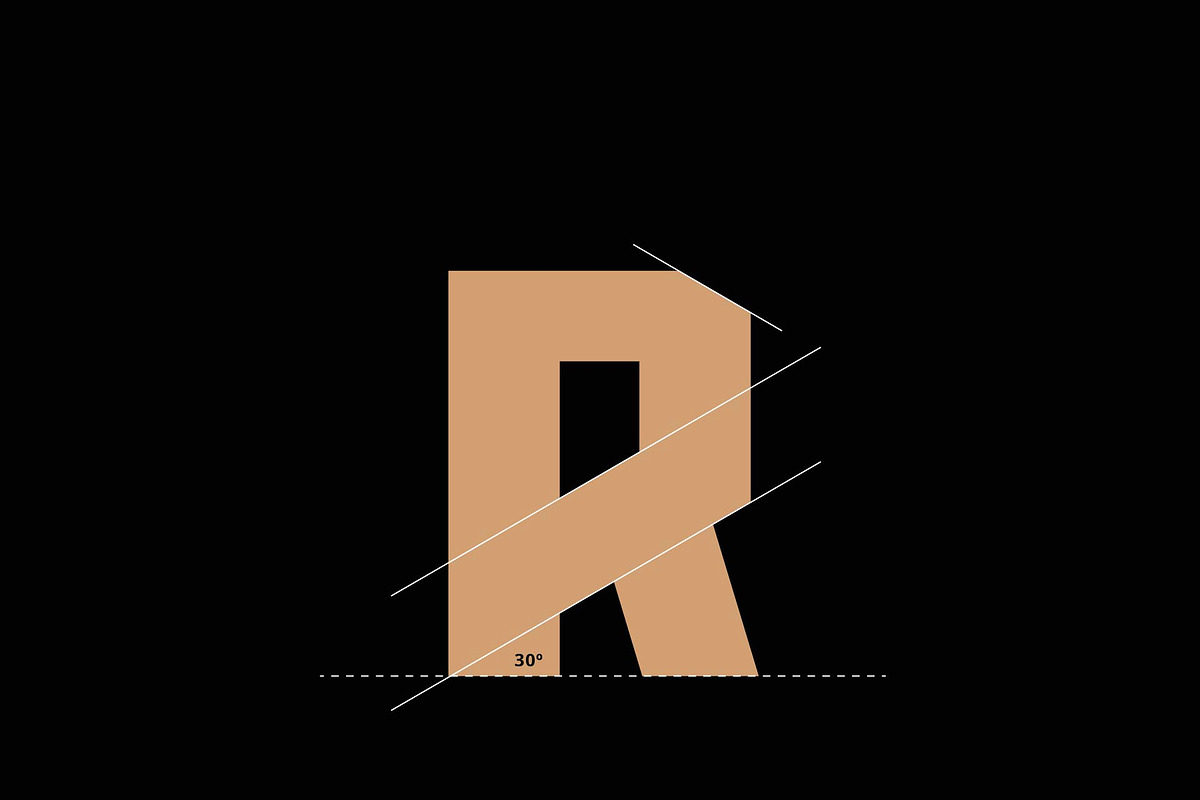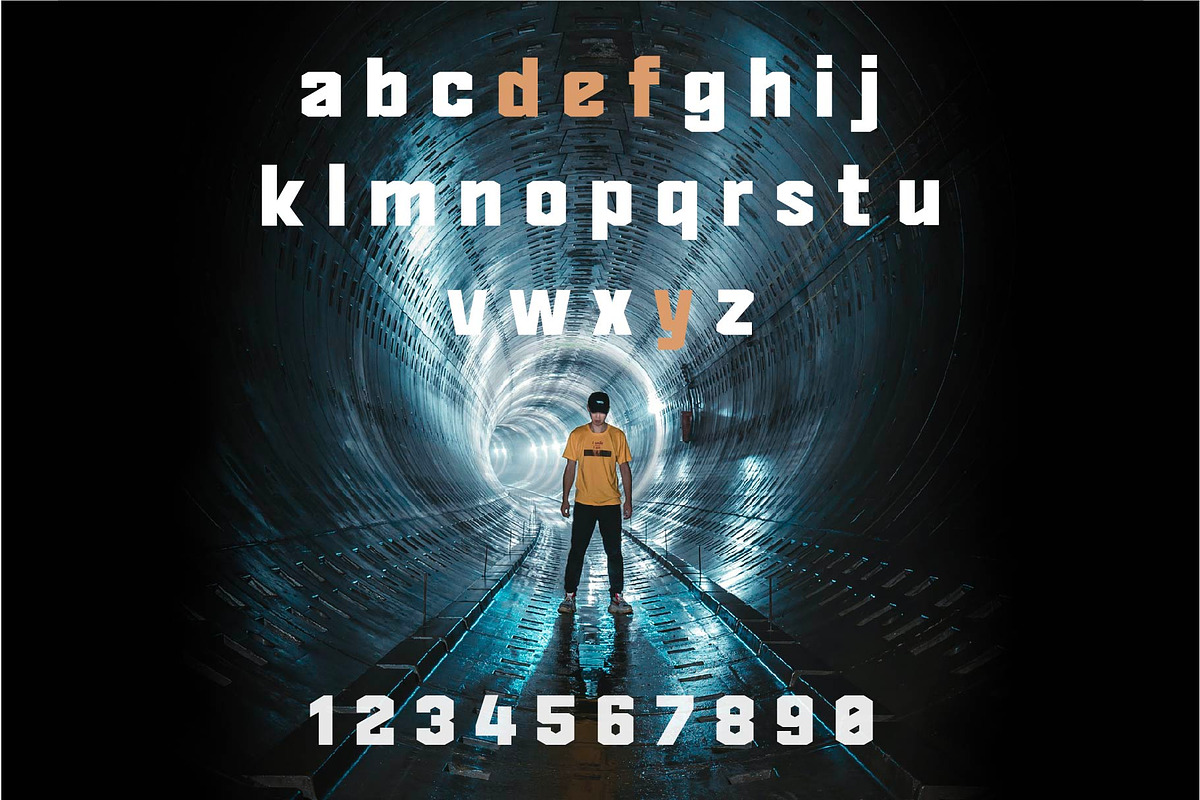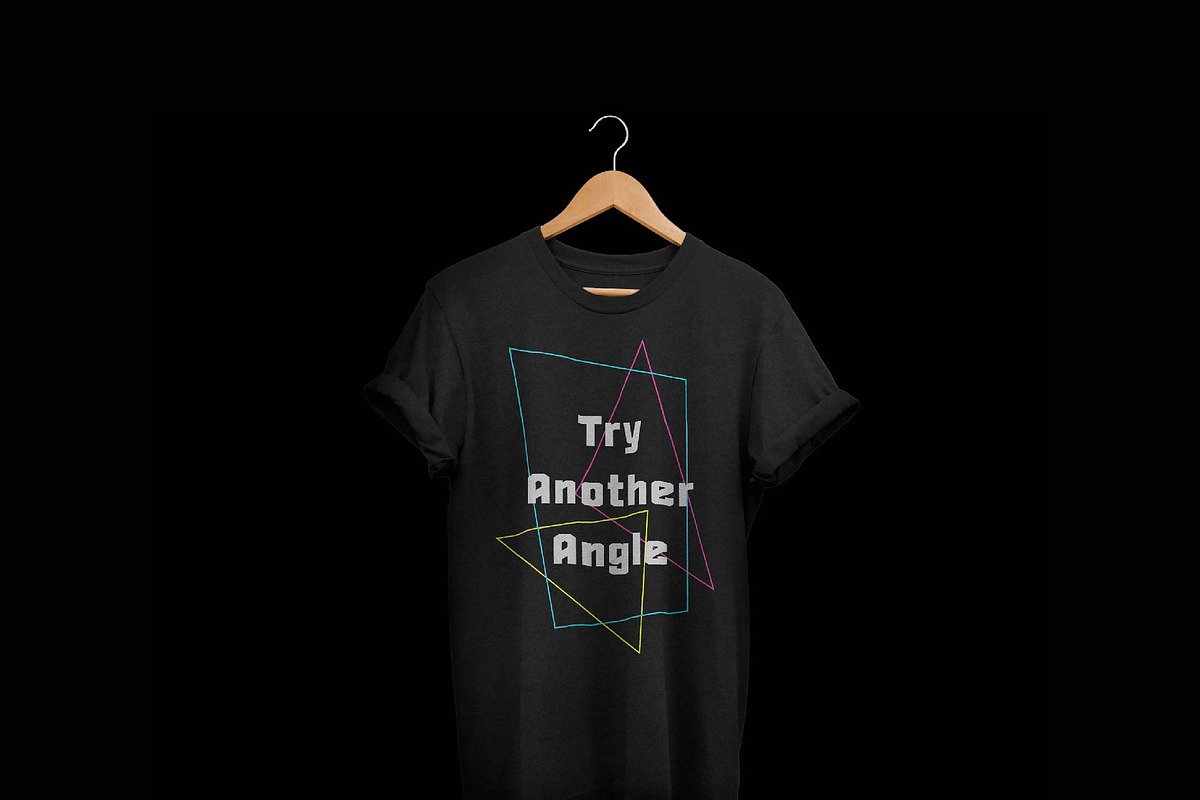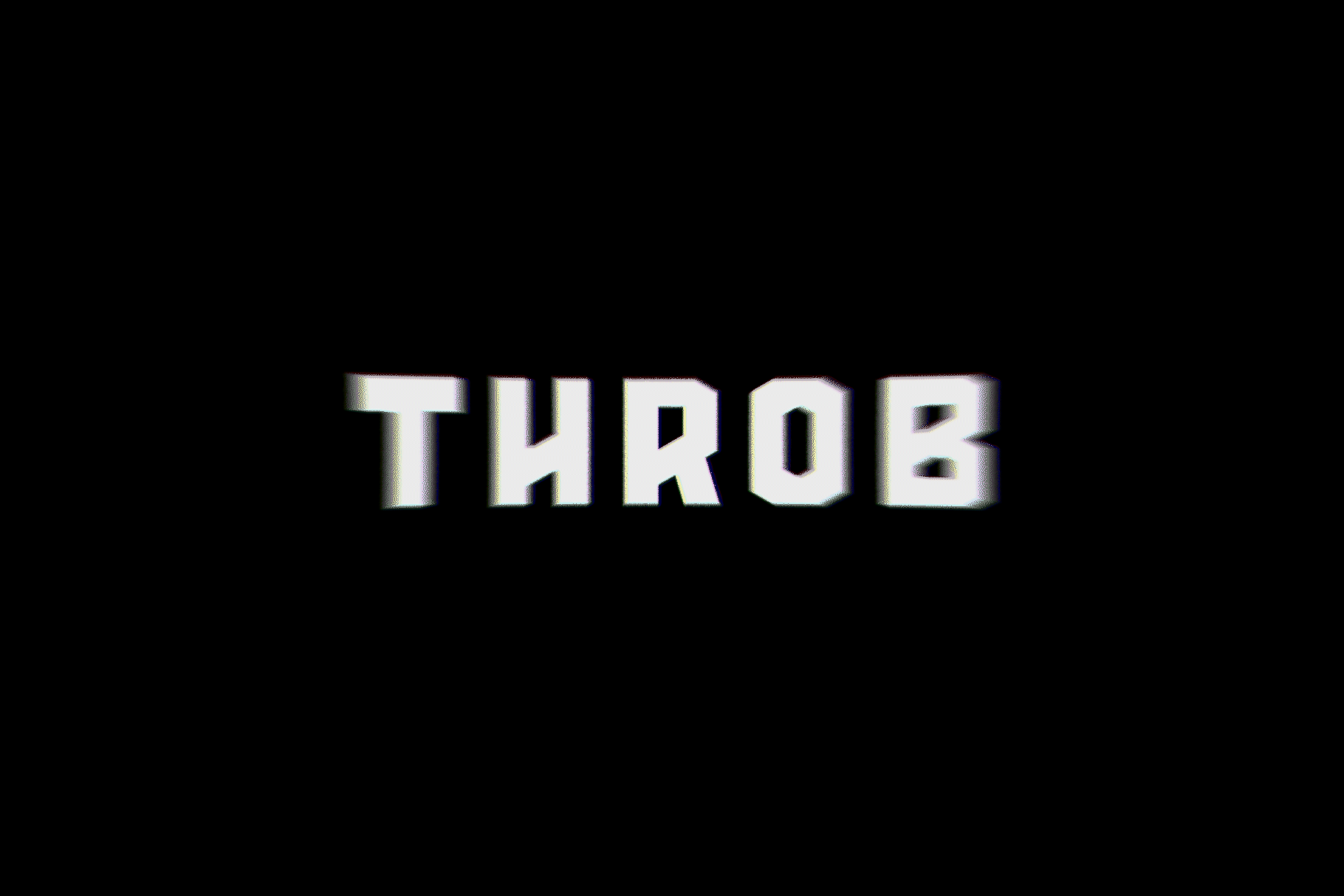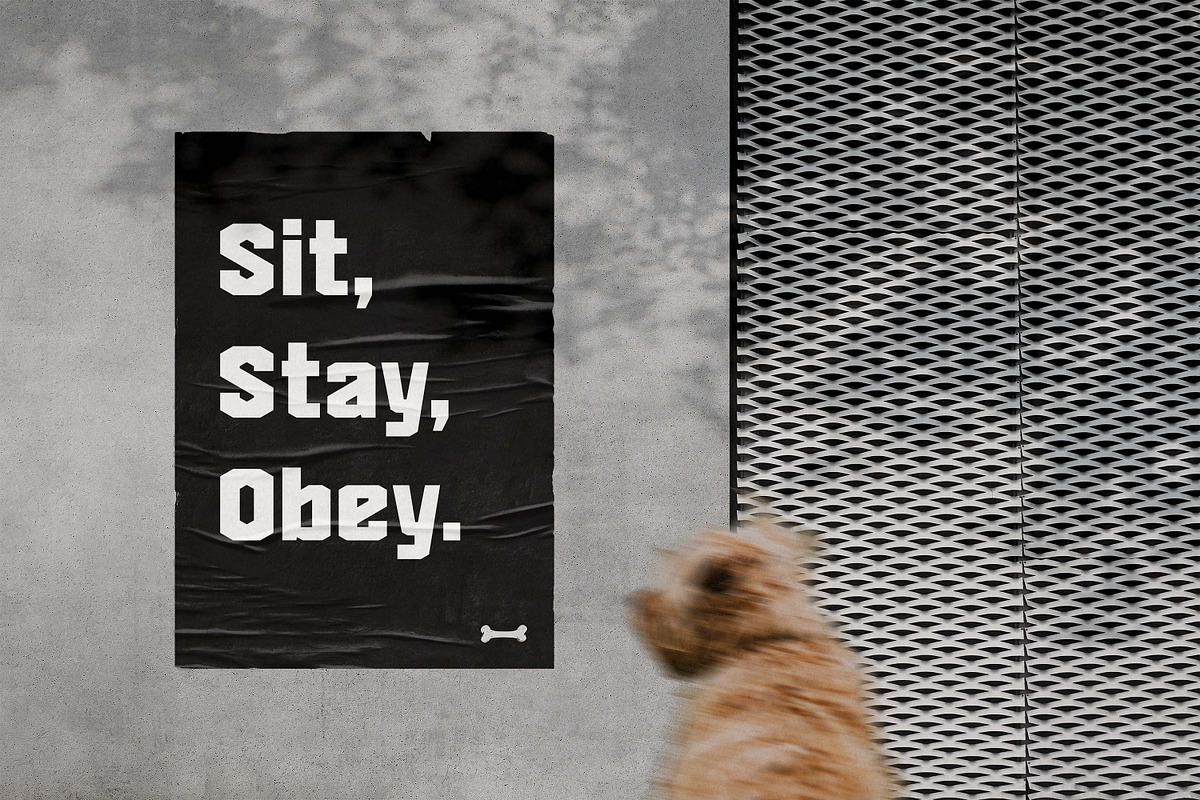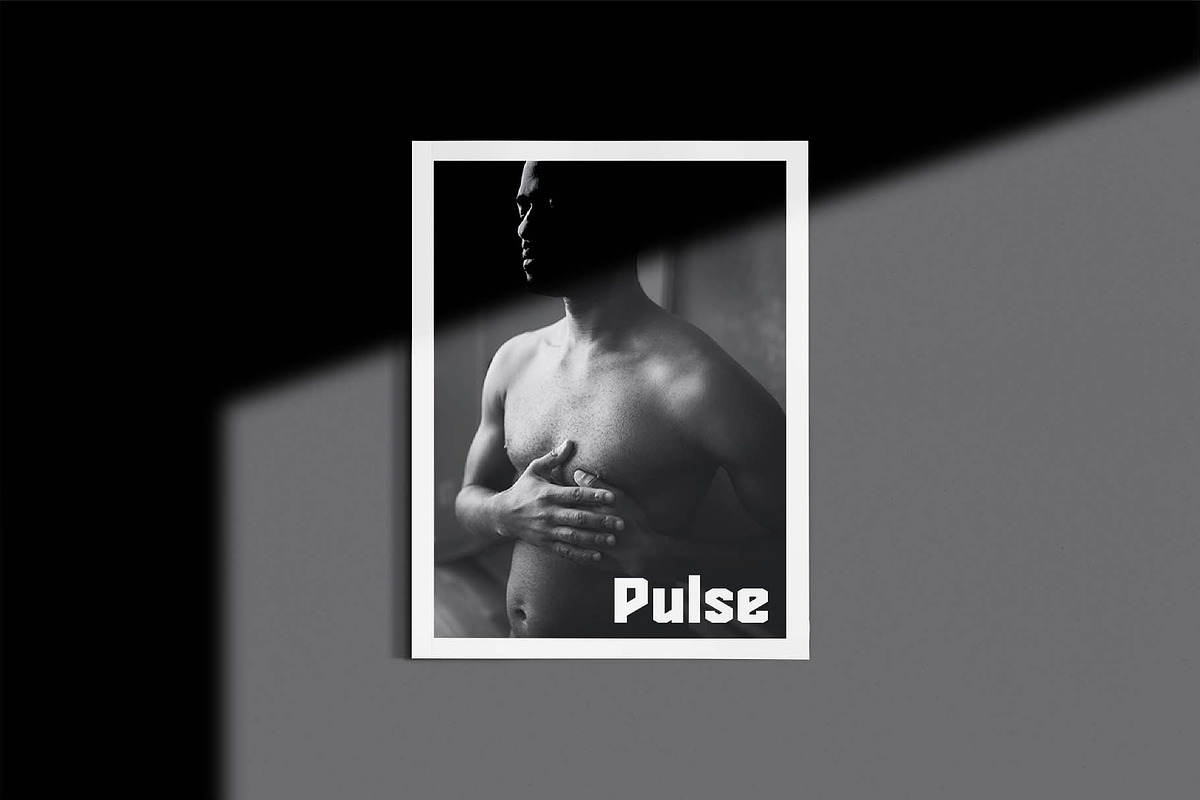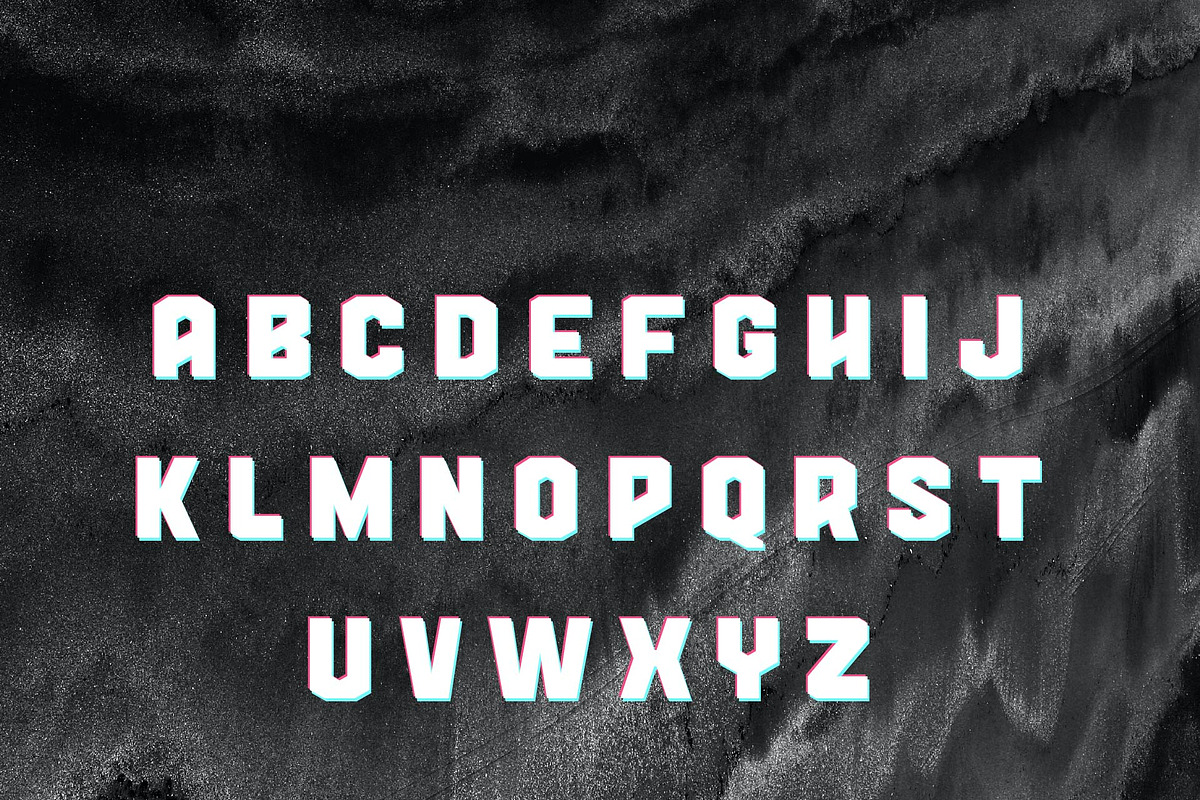
Throb Font
THROB is a bold display font, with a rough and industrial style. The font features chamfered corners at 30 degrees for a powerful and edgy visual.